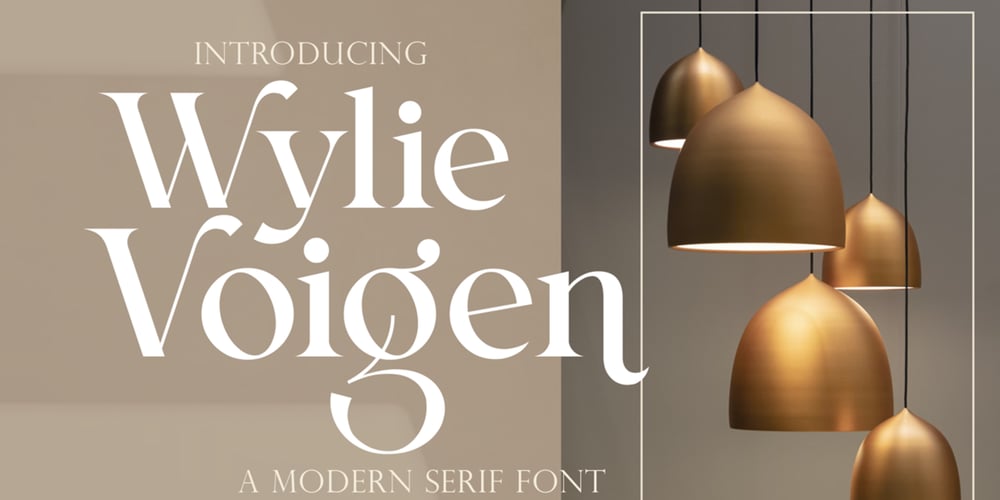
Wylie Voigen
Wylie Voigen font
Wylie Voigen Font Family was designed by Heri Imanudin and published by Krafted. Wylie Voigen contains 1 styles and family package options. Looking for a serif font that will make your brand stand out?Introducing Wylie Voigen – A Modern Serif Font.A mix of culture and style, Wylie Voigen is excellent for showing what makes your business unique.Wylie Voigen allows you to make stunning web pages, apps, ads, merchandise, printed cards, and anything else your business needs.What you’ll get: Multilingual & Ligature Support Full sets of Punctuation and Numerals Compatible with: Adobe Suite Microsoft Office KeyNote Pages Software Requirements: The fonts that you’ll receive in the pack are widely supported by most software. In order to get the full functionality of the selection of standard ligatures (custom created letters) in the script font, any software that can read OpenType fonts will work. We hope you enjoy this font and that it makes your branding sparkle! Feel free to reach out to us if you’d like more information or if you have any concerns.